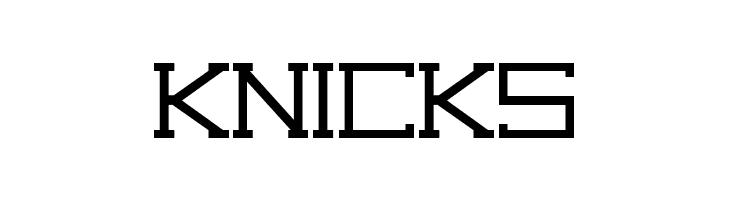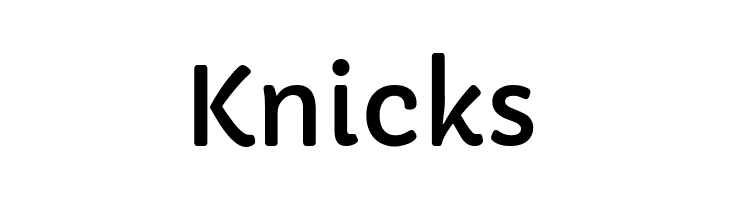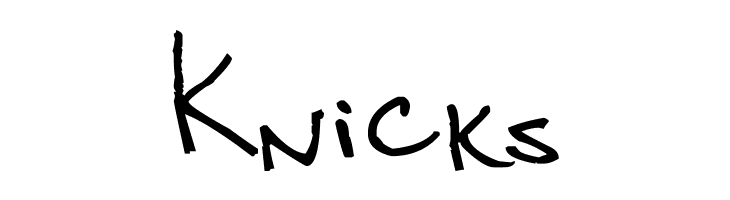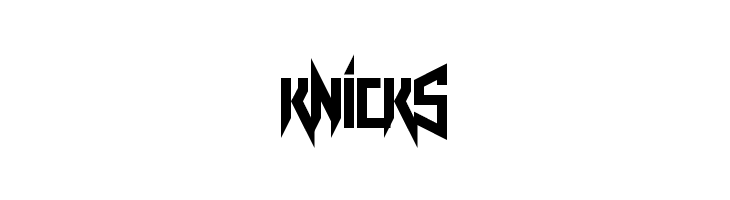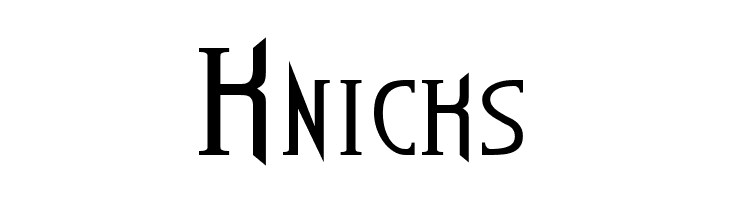
A futuristic, geometric font with clean lines and a modern aesthetic.
A sleek, futuristic font with geometric shapes and clean lines.
A bold, playful font with irregular, chunky characters and a whimsical style.
A bold, artistic font with dynamic angles and curves, perfect for creative projects.
A modern, geometric font with a clean and minimalistic design.
A modern, geometric font with clean lines and a structured, futuristic appearance.
A bold, geometric font with a modern and impactful design.
A bold, geometric font with a modern, tech-inspired design.
A bold, modern font with a unique halftone texture and consistent width.
A Gothic-inspired decorative font with ornate, playful letterforms and high contrast.
A decorative Gothic-style font with playful, ornate letterforms.
A whimsical and gothic-inspired font with playful, decorative elements.
A whimsical, hollow font with decorative, gothic-inspired elements.
A bold, edgy font with jagged, hand-drawn characters and a playful, chaotic vibe.
A bold, Gothic-inspired font with a distressed, hand-crafted appearance.
A gothic-inspired font with playful, ornate letterforms and dramatic flair.
A Gothic-inspired font with playful, whimsical elements and sharp serifs.
A Gothic-inspired font with sharp, angular lines and intricate detailing.
An ornate Blackletter font with gothic and medieval influences.
A bold, playful font with heart-shaped cutouts in each character.
A playful, informal handwritten font with rounded, consistent strokes.
A playful, casual handwritten font with smooth, flowing lines.
A bold, geometric slab serif font with a modern, structured appearance.
A bold, geometric font with an industrial and modern aesthetic.
A playful, graffiti-inspired outline font with a bold and artistic style.
A geometric and angular font with a modern, edgy style.
A geometric and artistic font with sharp angles and modern elements.
A bold, graffiti-inspired font with rough, brush-like strokes.
A bold, graffiti-inspired font with sharp, angular lines and dynamic curves.
A bold, graffiti-inspired font with dynamic, angular lines and a street art vibe.
Bold, angular graffiti-inspired font with a dynamic urban style.
A bold, graffiti-inspired font with sharp angles and dynamic forms.